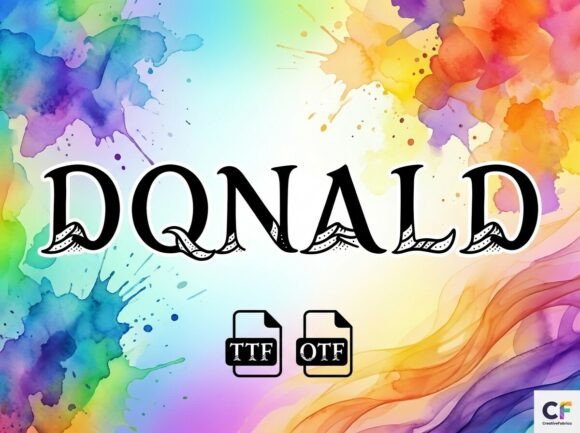
Discover the Whimsical World of Donald Font: Elevate Your Designs with Celestial Elegance
In the realm of typography, few fonts capture the essence of celestial whimsy as beautifully as Donald Font. This decorative display font is a masterpiece that reimagines traditional serif typography, infusing it with a sense of magic and wonder. With its stately, high-contrast letterforms and delicate, hand-drawn wings, Donald Font is the perfect choice for designers and crafters seeking to add a touch of enchantment to their projects.
The Unique Charm of Donald Font
Donald Font’s distinctive charm lies in its meticulously crafted letterforms, each adorned with delicate, hand-drawn wings that seem to defy gravity. The wings are embellished with rhythmic stippling and flowing patterns, adding a sense of movement and fluidity to the font. This attention to detail creates a truly ethereal and fairytale-like quality, making Donald Font an ideal choice for projects that require a sense of wonder and magic.
Key Features of Donald Font
- Stately, High-Contrast Letterforms: Donald Font features bold, high-contrast letterforms that command attention while exuding elegance and sophistication.
- Delicate, Hand-Drawn Wings: Each character is adorned with delicate, hand-drawn wings that add a touch of whimsy and fantasy to the font.
- Rhythmic Stippling and Flowing Patterns: The wings are embellished with rhythmic stippling and flowing patterns, creating a sense of movement and fluidity.
- Ethereal-Fairytale Soul: Donald Font’s unique design elements combine to create an ethereal, fairytale-like quality that is perfect for projects that require a sense of magic and wonder.
- Balanced Weight: The font’s balanced weight ensures that it remains legible and visually appealing, even at larger sizes.
Ideal Applications for Donald Font
Donald Font’s versatility and unique charm make it an excellent choice for a variety of design applications, including:
- Children’s Fantasy Book Titles: Donald Font’s whimsical design makes it perfect for children’s fantasy book titles, adding a touch of magic and wonder to the cover.
- Boutique Enchanted-Themed Branding: The font’s ethereal quality makes it an excellent choice for boutique enchanted-themed branding, helping to create a sense of luxury and sophistication.
- Artisanal Stationery: Donald Font’s delicate, hand-drawn wings and flowing patterns make it a beautiful choice for artisanal stationery, adding a touch of elegance and whimsy to cards and invitations.
- Imaginative “Story-Time” Social Media Headers: The font’s unique design elements make it perfect for imaginative “story-time” social media headers, helping to capture the reader’s attention and draw them into the story.
Tips for Using Donald Font Effectively
To get the most out of Donald Font, consider the following tips:
- Use it as a Display Font: Donald Font is designed to make a statement, so use it as a display font to draw attention to headings, titles, and key messages.
- Experiment with Color: The font’s delicate, hand-drawn wings and flowing patterns make it a great choice for use with a range of colors, from pastel hues to bold and bright shades.
- Pair it with a Simple Serif Font: For body text, pair Donald Font with a simple serif font to create a striking contrast between the two and ensure that your message is clear and easy to read.
Donald Font is a truly unique and captivating decorative display font that is sure to elevate your designs with its celestial elegance. With its stately, high-contrast letterforms, delicate, hand-drawn wings, and rhythmic stippling and flowing patterns, this font is the perfect choice for designers and crafters seeking to add a touch of magic and wonder to their projects. Whether you’re creating children’s fantasy book titles, boutique enchanted-themed branding, artisanal stationery, or imaginative “story-time” social media headers, Donald Font is the premier choice for adding a sense of whimsy and enchantment to your designs.